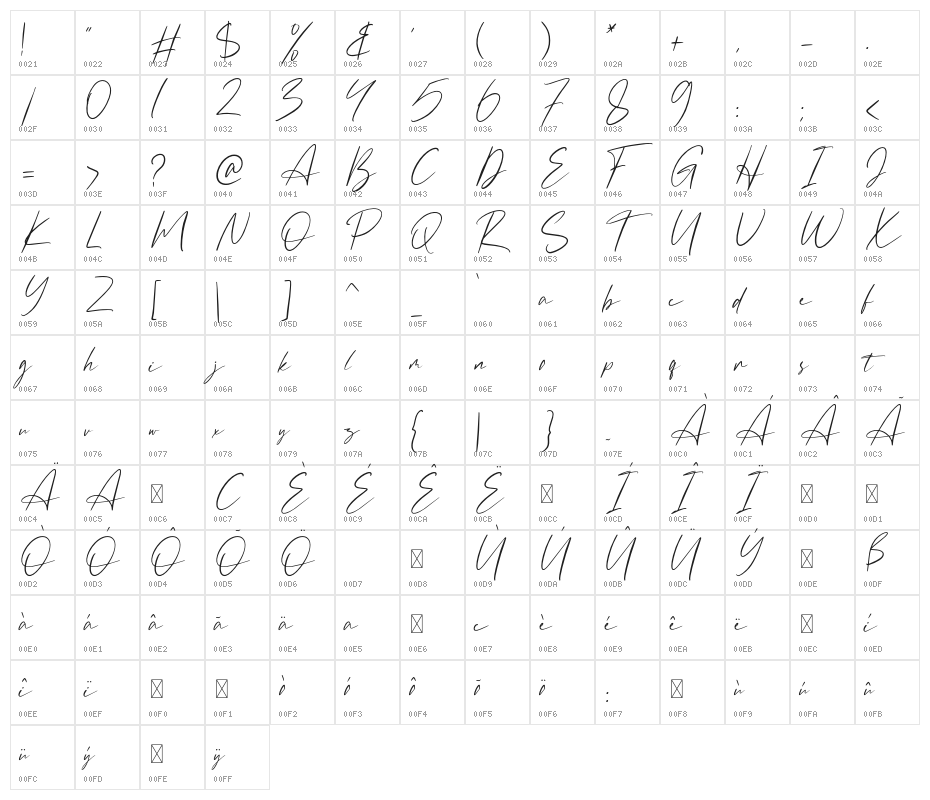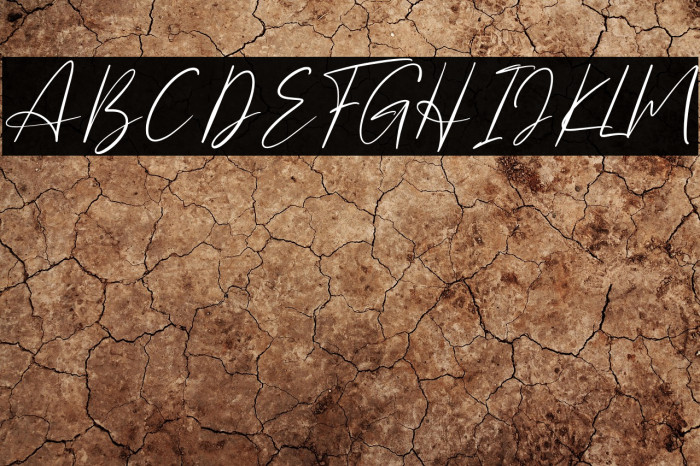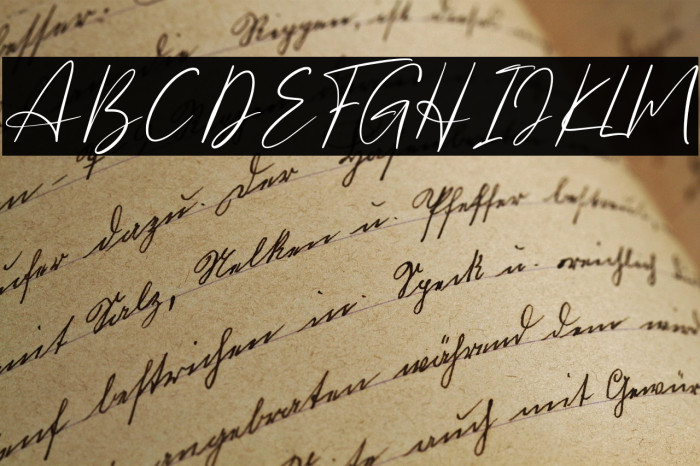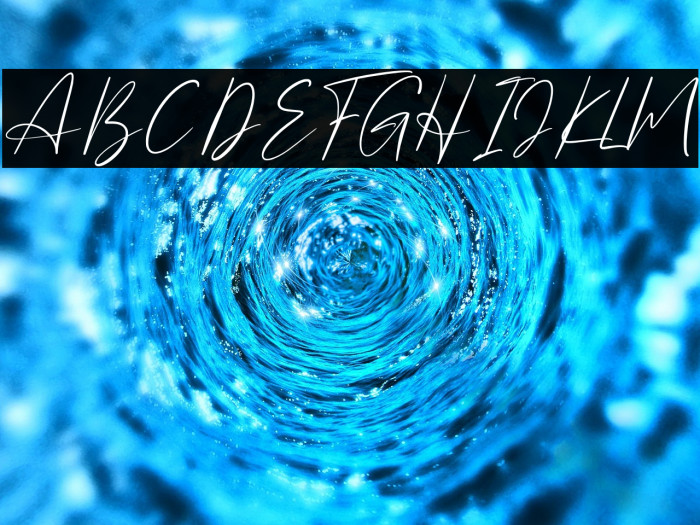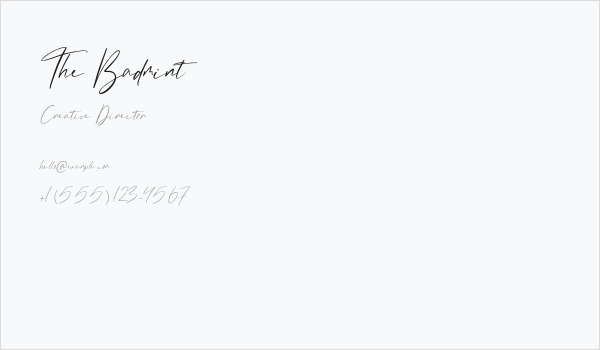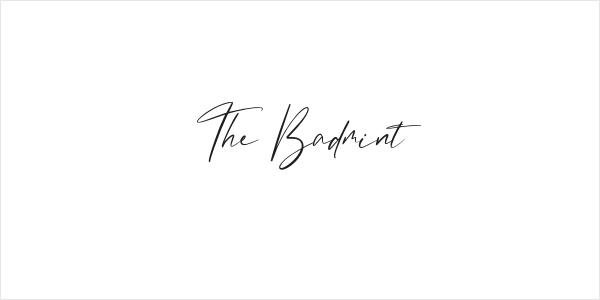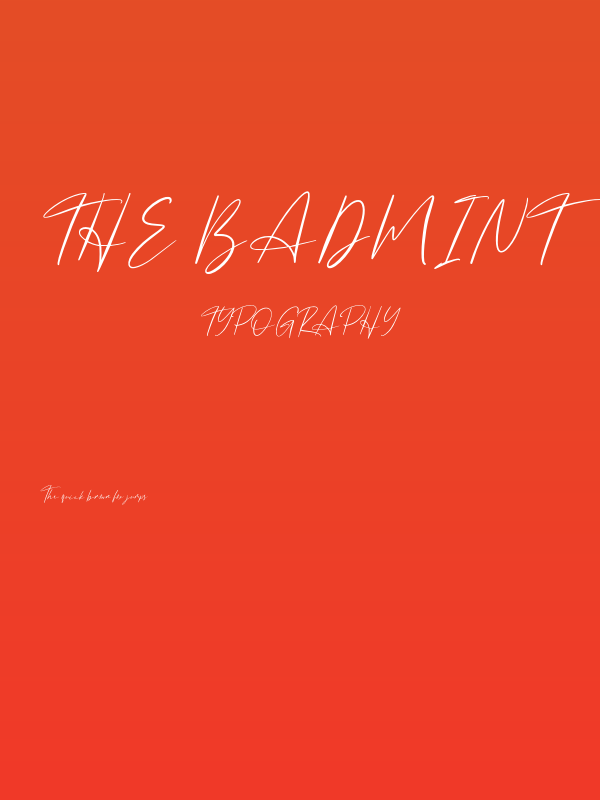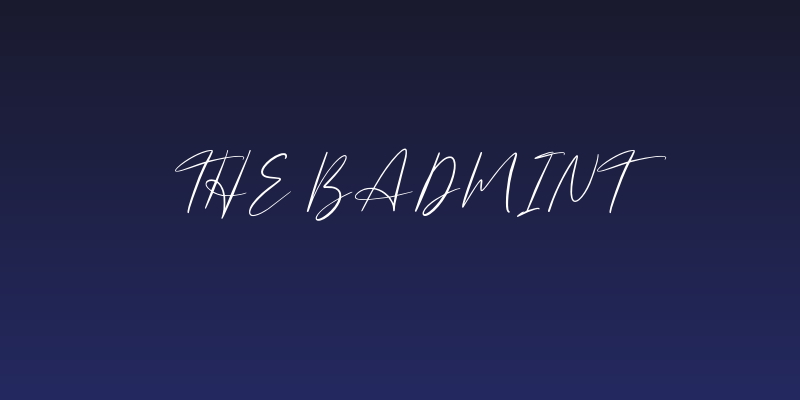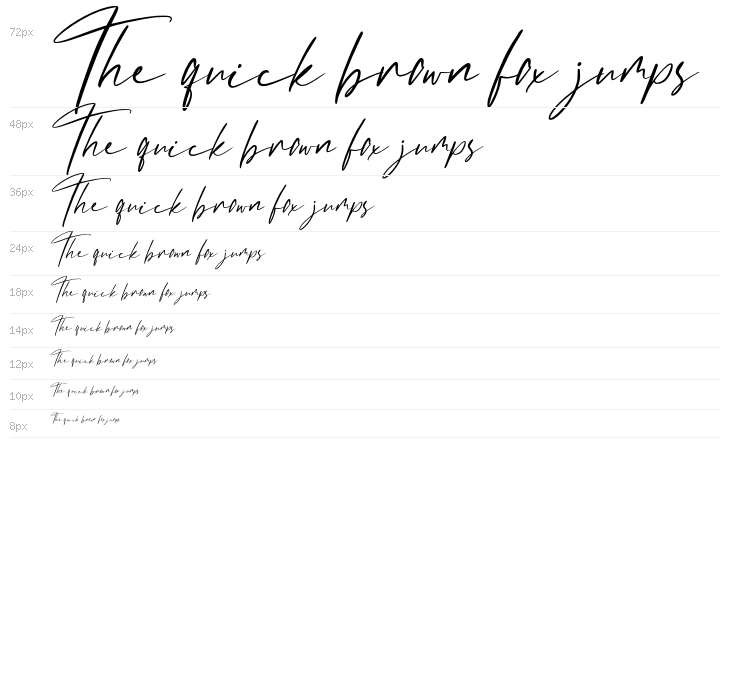
The Badmint Font
The Badmint Description
This font exudes a dynamic and fluid handwritten style, characterized by its elegant and flowing script. The letters are interconnected with smooth, sweeping curves, giving it a natural and personal touch. The uppercase letters maintain a consistent height, while the lowercase letters vary slightly, adding to the organic feel. The numerals and special characters are crafted with the same attention to detail, ensuring a cohesive look across all elements. This font is perfect for projects that require a personal, yet sophisticated touch, such as invitations, greeting cards, or branding materials.
| Use Case | Logos, Headlines, Decorative text |
| Proposed Projects | Ideal for invitations, greeting cards, branding materials, and personal projects. |